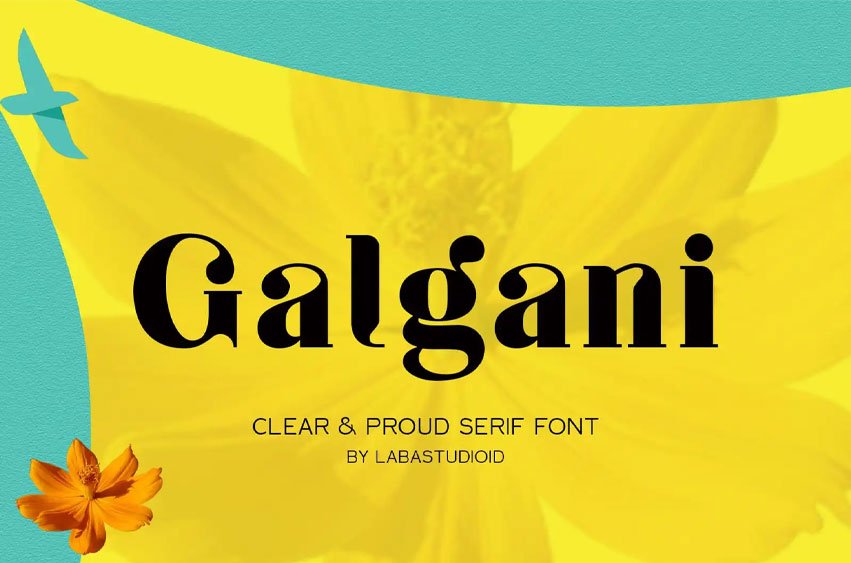
Galgani Font is very suitable to be applied to the design of posters, invitations, leaflets, banners, and is still suitable for logos, branding and other needs that give a special and unique characteristic.
Galgani font has been designed complete with uppercase and lowercase, punctuation, numbering and multiple languages. Setting height and precise spacing will make your design attractive with clear legibility.